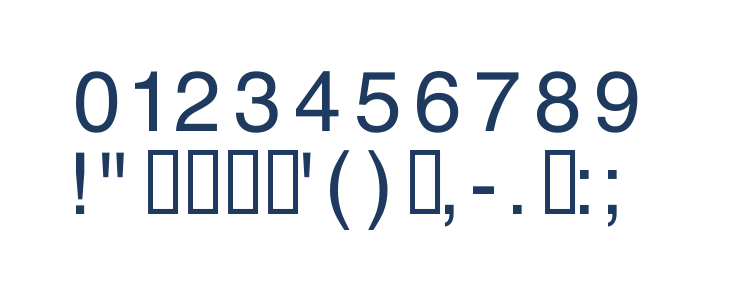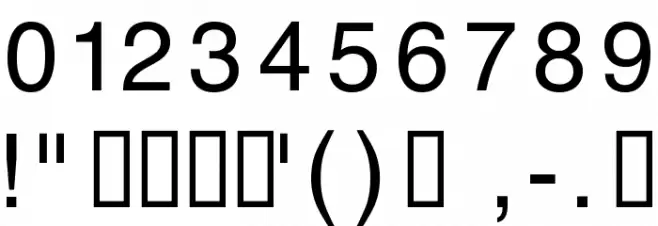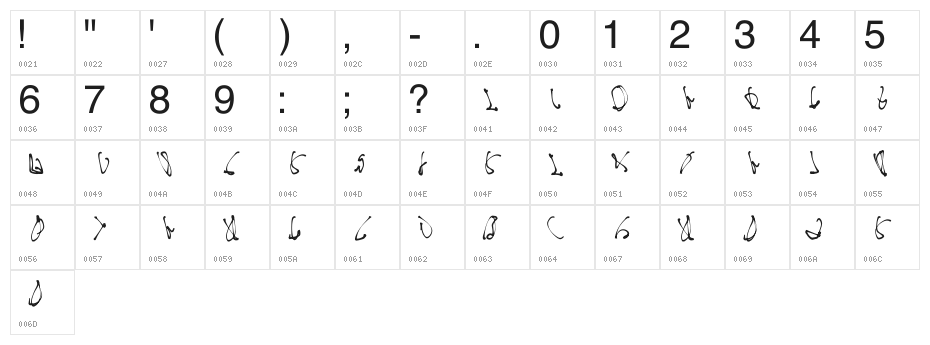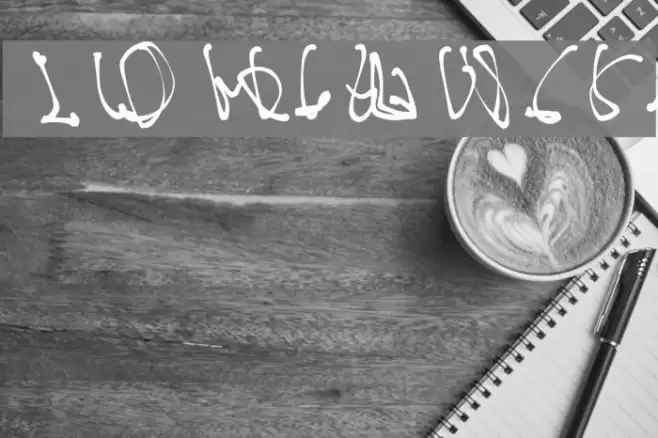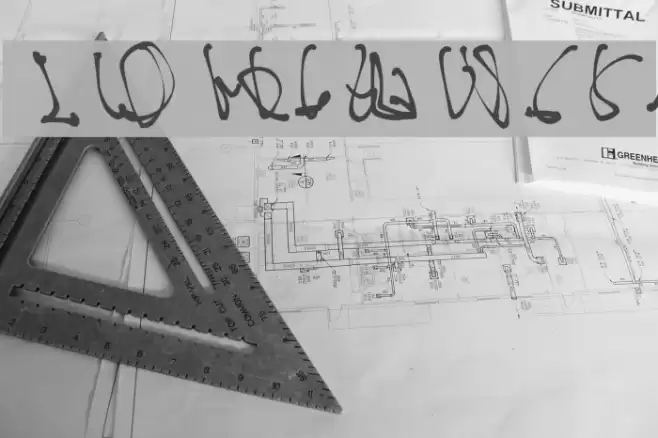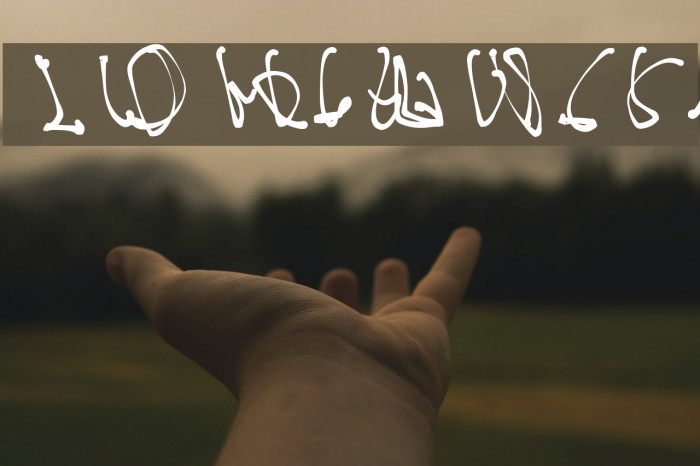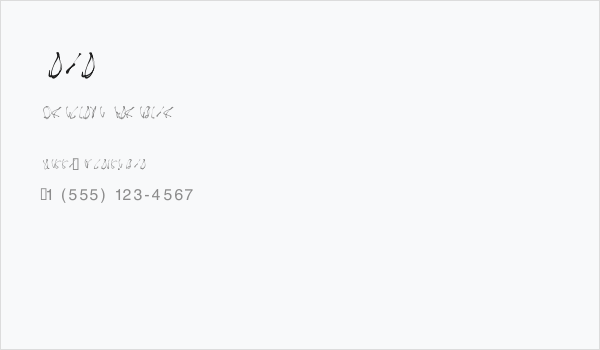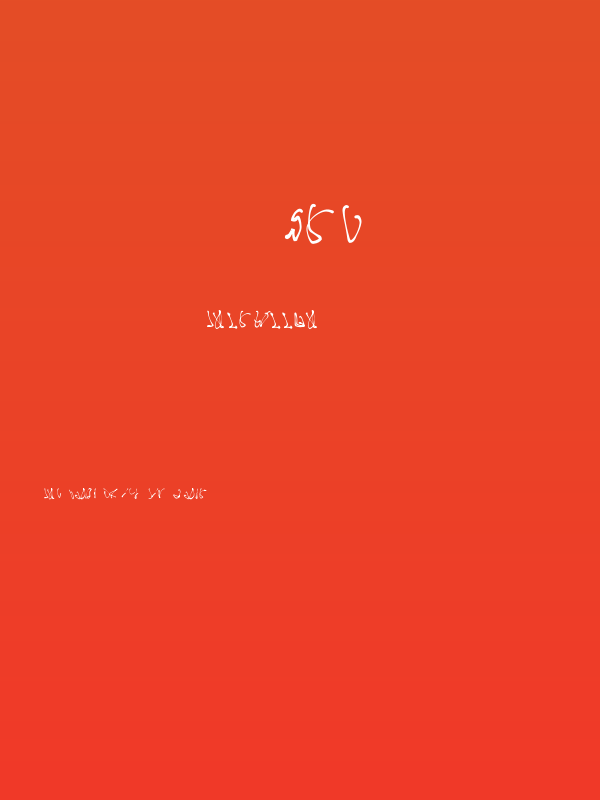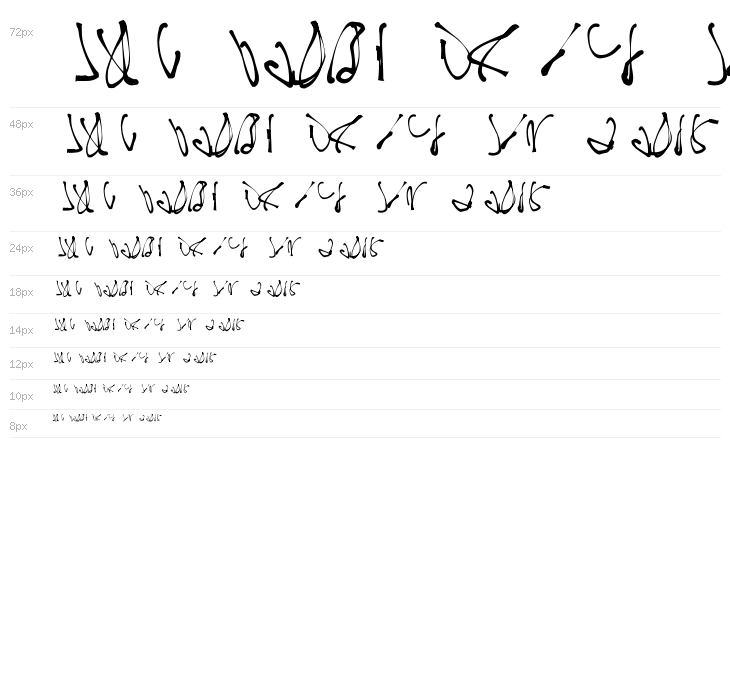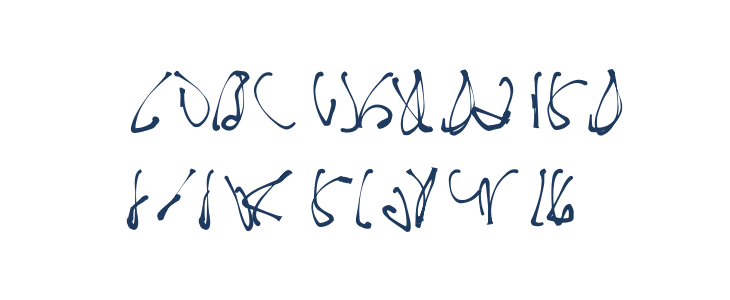
moi Font
moi Description
This font features a highly decorative and abstract style, characterized by its intricate and swirling letterforms. The uppercase and lowercase letters exhibit a fluid, almost calligraphic design, with exaggerated loops and curves that create a sense of movement and artistic flair. The numbers and special characters, in contrast, are rendered in a bold, geometric sans-serif style, providing a stark visual difference from the letters. This combination of styles makes the font unique and eye-catching, suitable for creative and artistic projects where a distinctive look is desired.
Use CaseLogos, Artistic projects, Posters
Proposed ProjectsIdeal for artistic posters, creative branding, unique invitations, and avant-garde design projects.